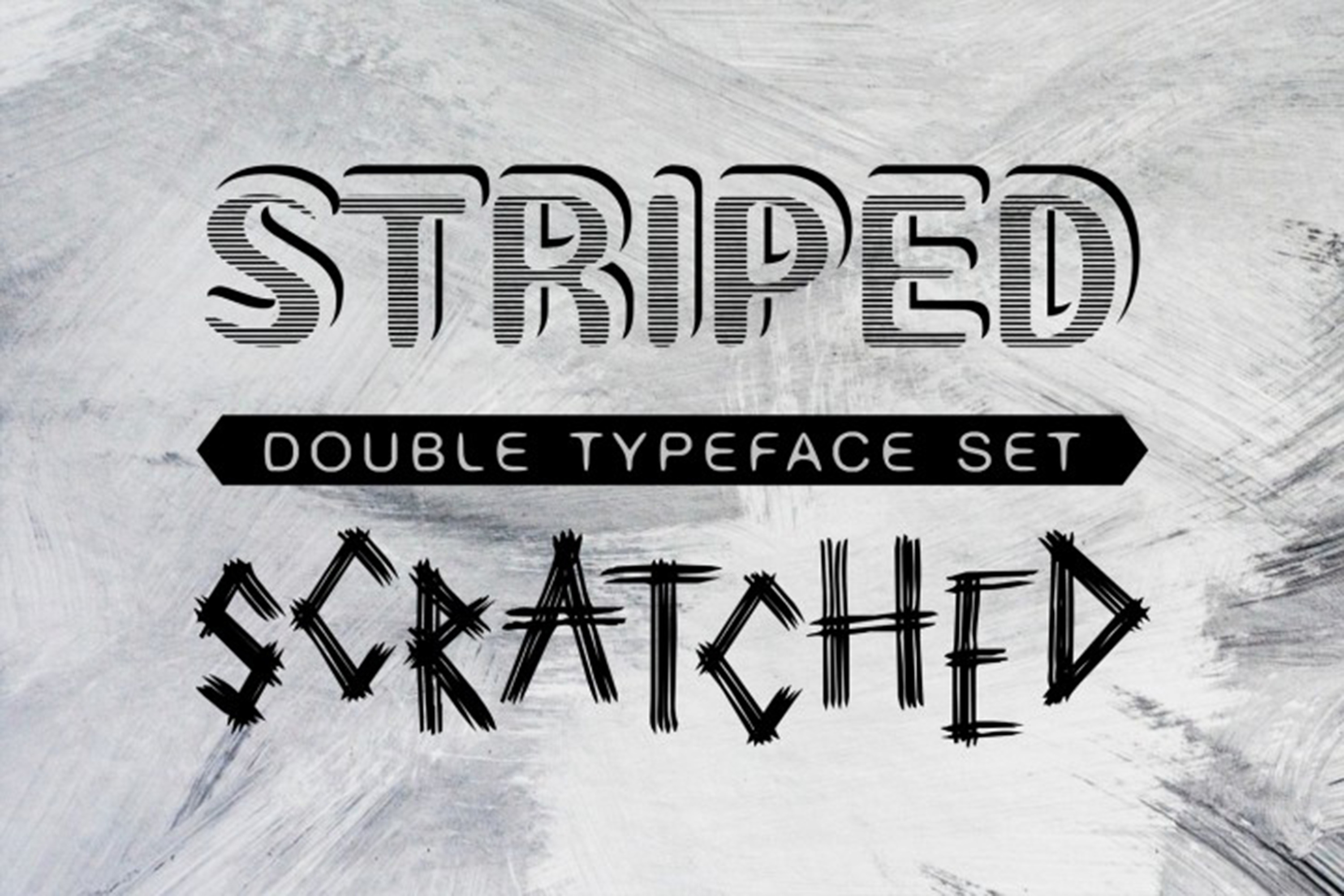
Striped & Scratched double font set
Double Font Set
- Striped and Scratched typefaces
Scratched - Crafters
New design font named Crafters is out! Inspired from survivors themed plywood crafted everything you can craft – here we’ve crafted Crafters typeface font for you. Scratched, scorched wet wood piles was our build material. This font is good for last letter to write and to stick in the bottle and through as far as you can in the sea with only three letters SOS. Of course, font include all English letters… only uppercase – to make it MORE VISIBLE!
Striped - StricktlyStriped
StrictlyStriped © typeface is the mild mood font that could be used in calm designs of posters, or headings of text etc. It has attractive nice-looking letters that shapes the stripes with big shadow that falls under like if light was looking toward letter from bottom. Creatively beautiful constructed based on modern outline ideas from fashion industry and modern art this typeface is ideal for street advertisement like shop name, service description design, menu in vintage style cafe, decoration party etc.